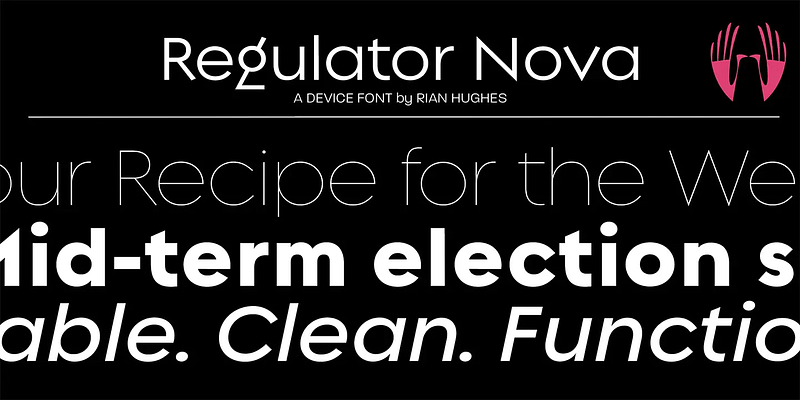
Regulator Nova specimen
Regulator Nova
A versatile family with proportions that echo early sans such as Gill or Futura. A large lower-case x-height makes it very readable at text sizes. An alternative (though less unusual) "g" is an OpenType option.